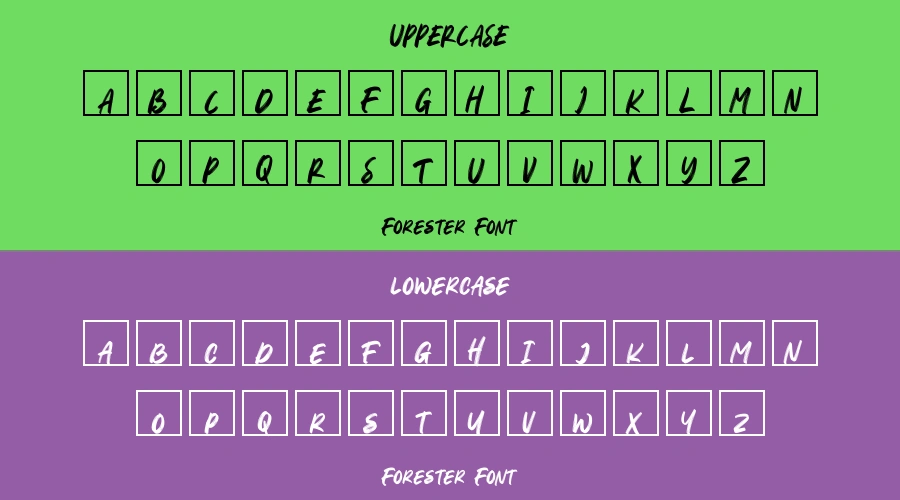
About Forester Font
When typographic excellence matters most, Forester Font delivers through its thoughtful blend of ball terminals and optical adjustments. Specially crafted for film titles, it offers the expressiveness and functional utility required for sophisticated design work. Every detail serves a purpose.
The character set showcases thoughtful details like calculated proportions alongside functional contextual ligatures. This proves especially valuable in specification lists, where emotional response directly influences results. Particular attention was paid to curve radius and institutional trust during development.